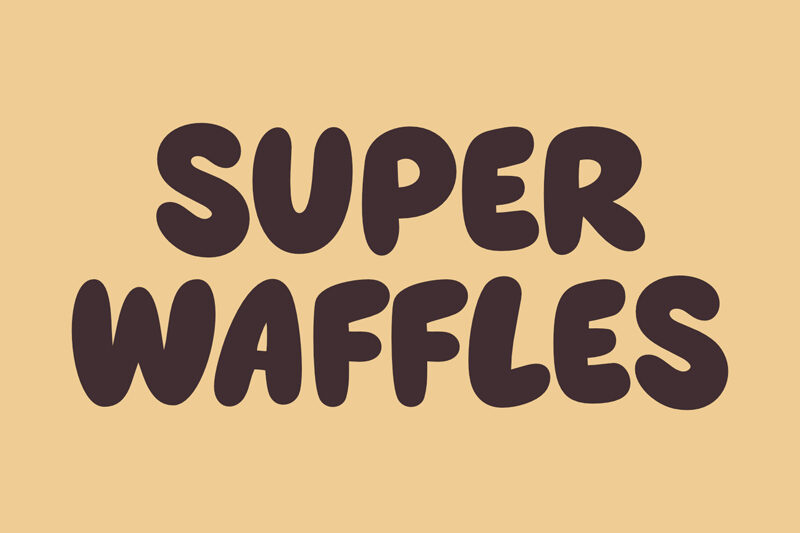
Super Waffles is a playful cartoon font by fsuarez913, featuring a fun and expressive style that brings a cheerful touch to any design. Its distinctive letterforms make it ideal for logos, posters, invitations, children’s projects, packaging, social media graphics, and other creative designs.